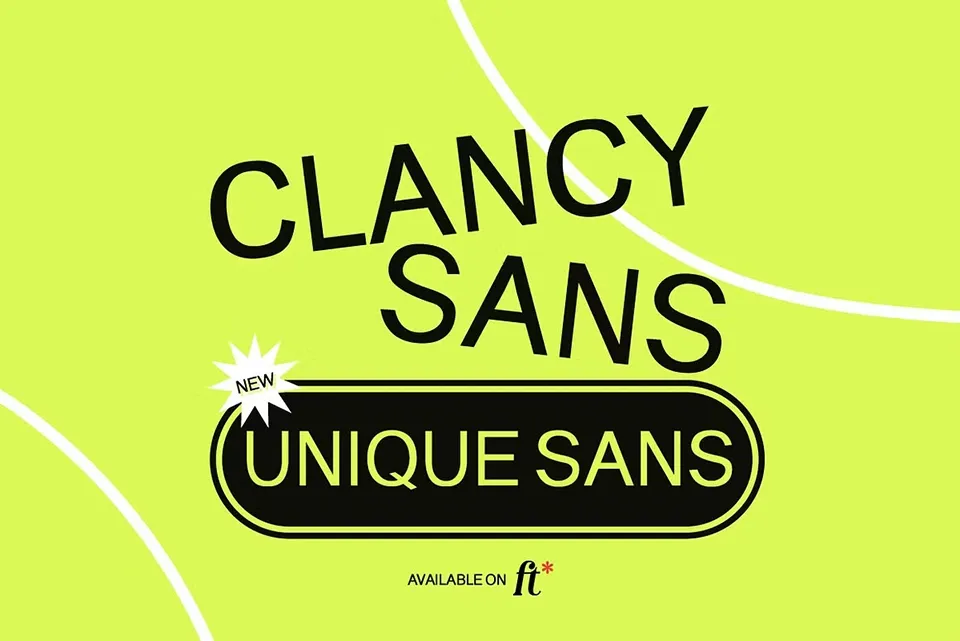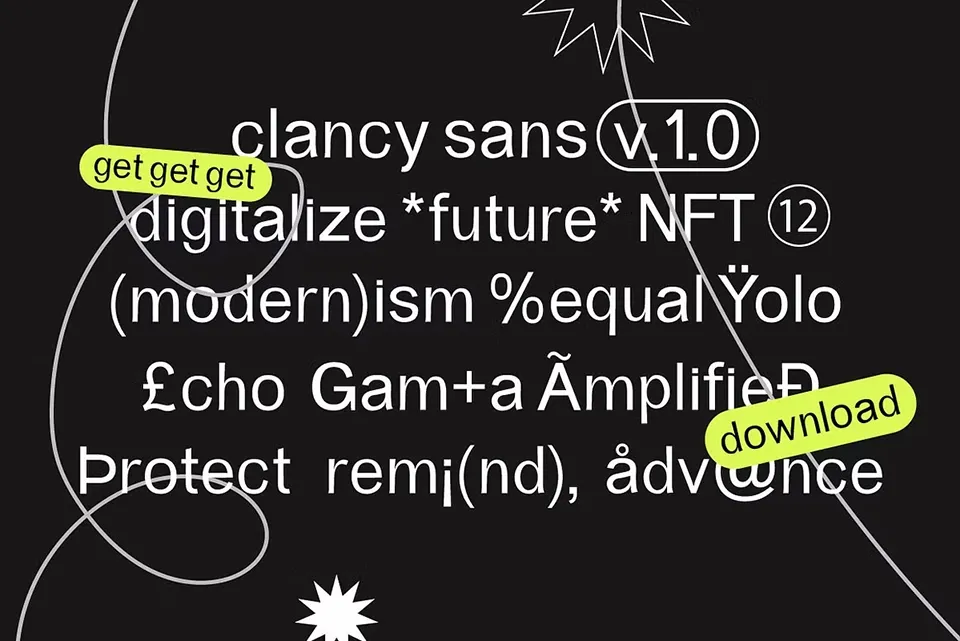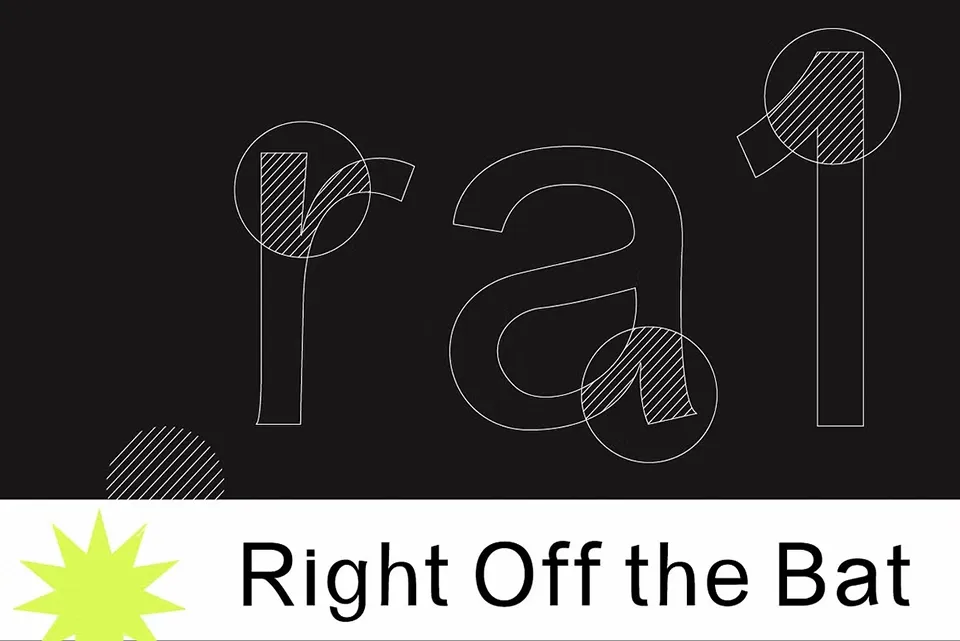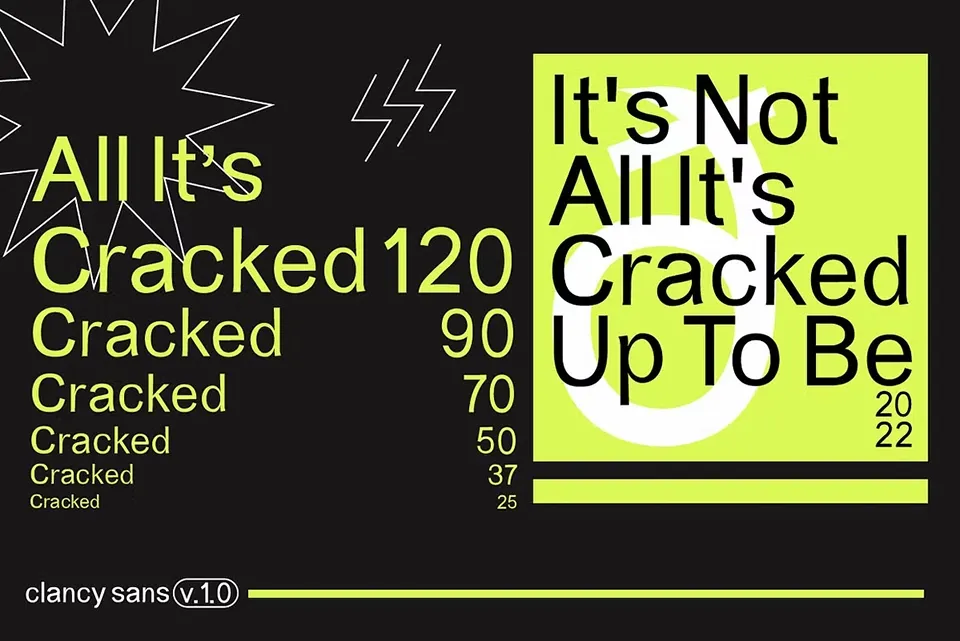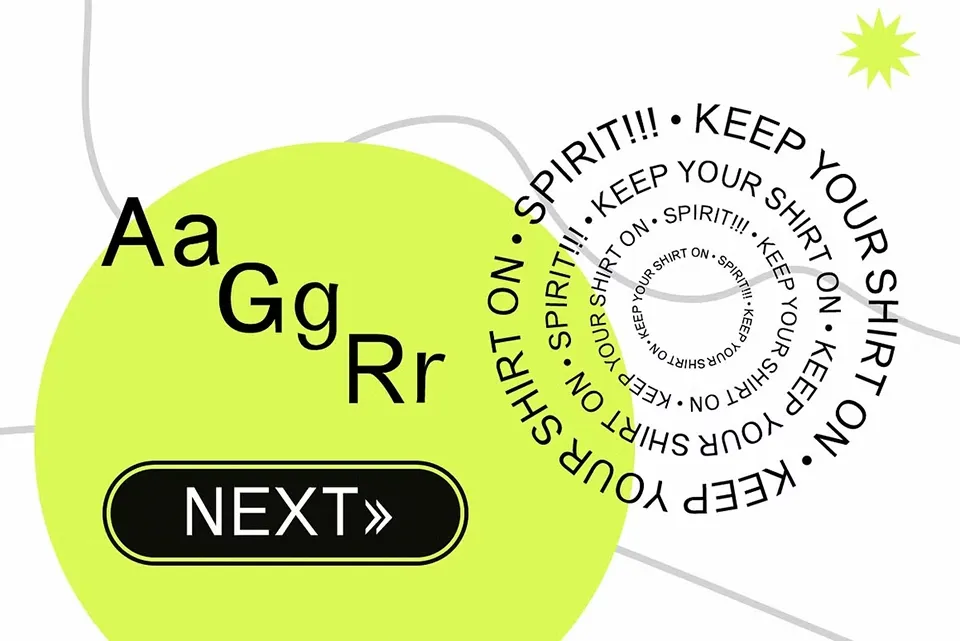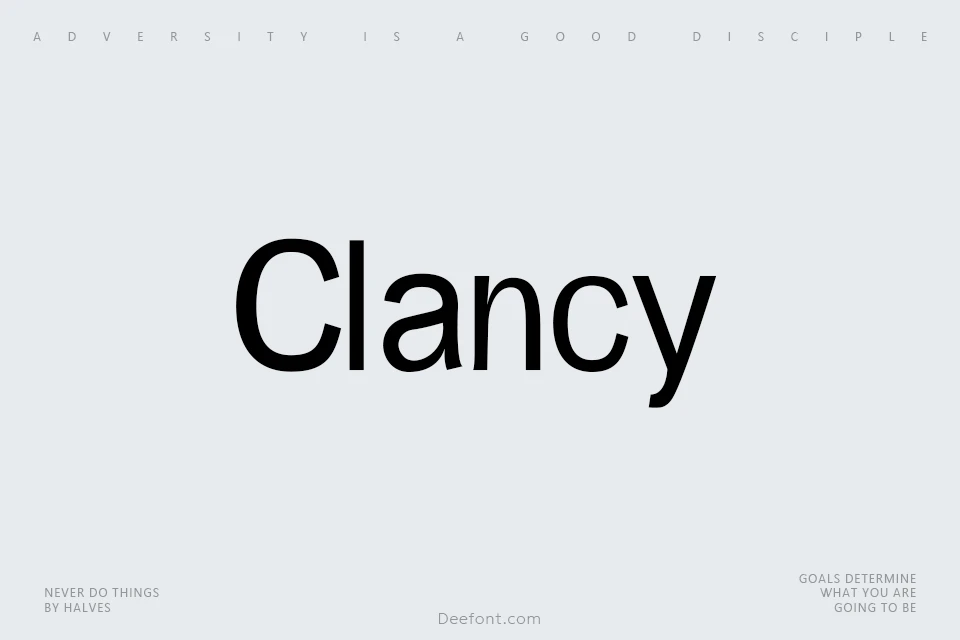
Clancy Sans Font
Clancy Sans Font is a sleek and modern sans serif font designed for versatility and clarity. With its clean lines and contemporary style, Clancy Sans is perfect for a wide range of design projects, including branding, editorial layouts, web design, and signage. Its minimalist aesthetic ensures excellent readability while maintaining a bold visual presence. The font’s unique character shapes and balanced proportions make it both functional and stylish, suitable for professional and creative applications alike. Whether used for headlines or body text, Clancy Sans delivers a polished and sophisticated look that elevates any design. Add a fresh, modern touch with Clancy Sans!